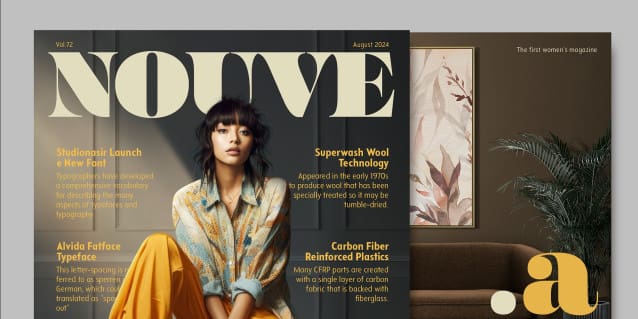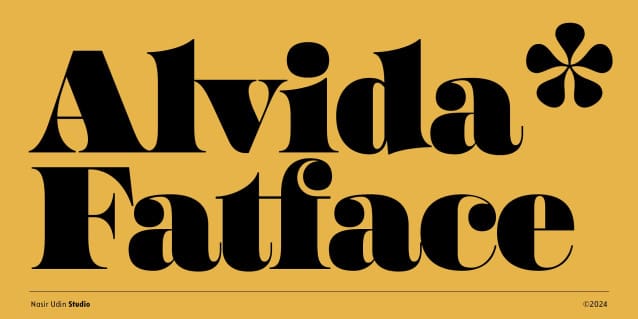
Alvida Fatface Font
Alvida Fatface Font was inspired by fat face style fonts that were popular in the 19th century. Using high contrast between extremely bold and thin stroke makes Alvida an attention-catching display font. Alvida consist of one-style font supported for multilingual language.